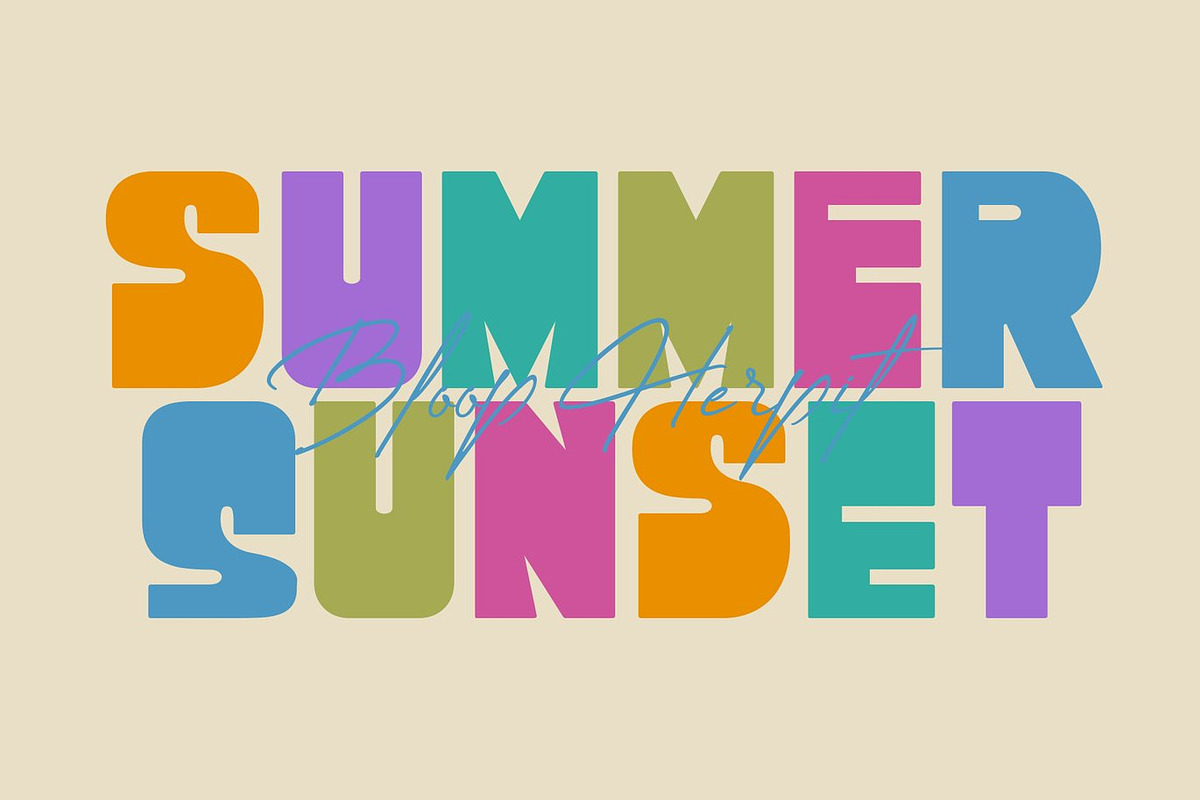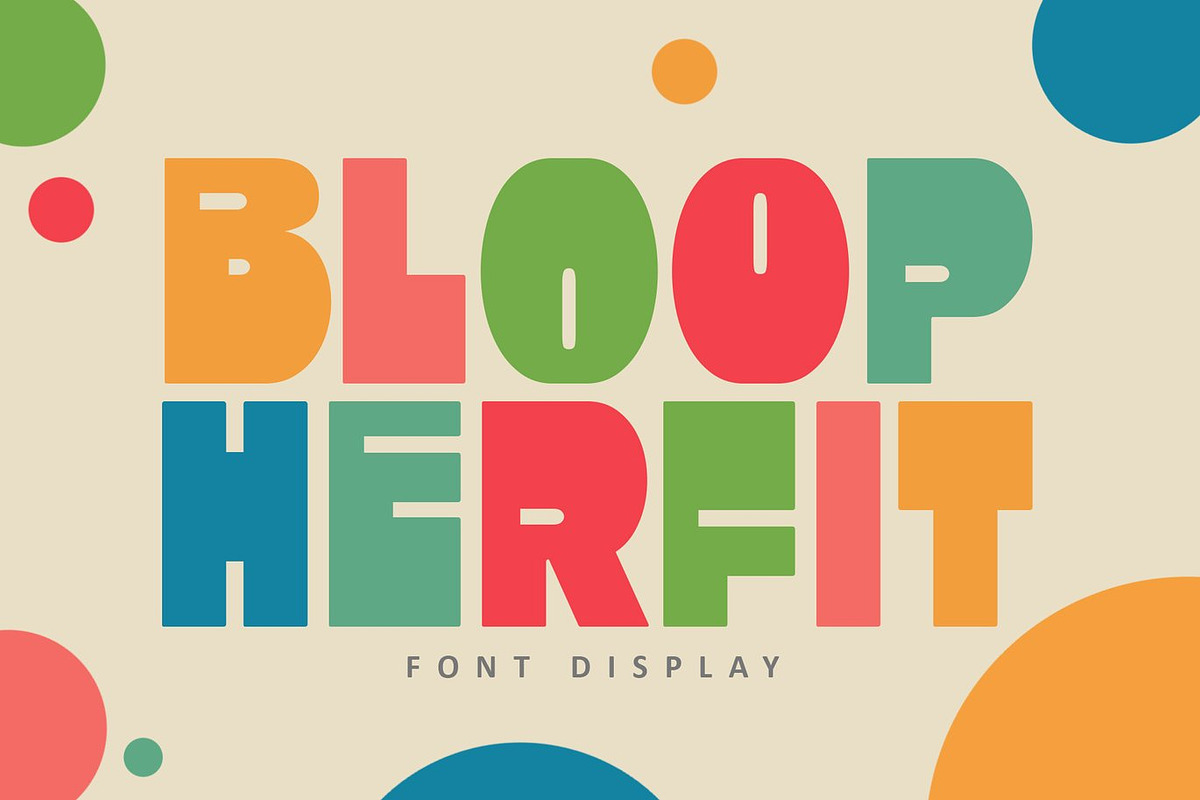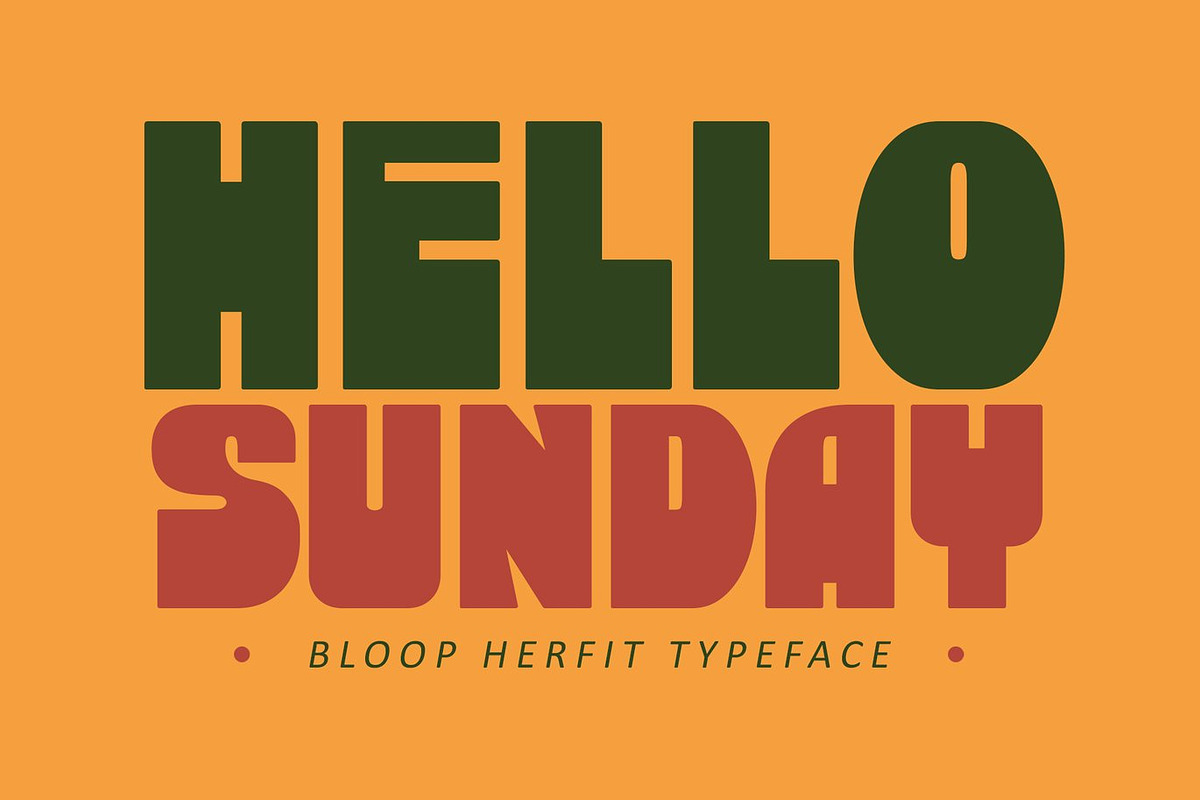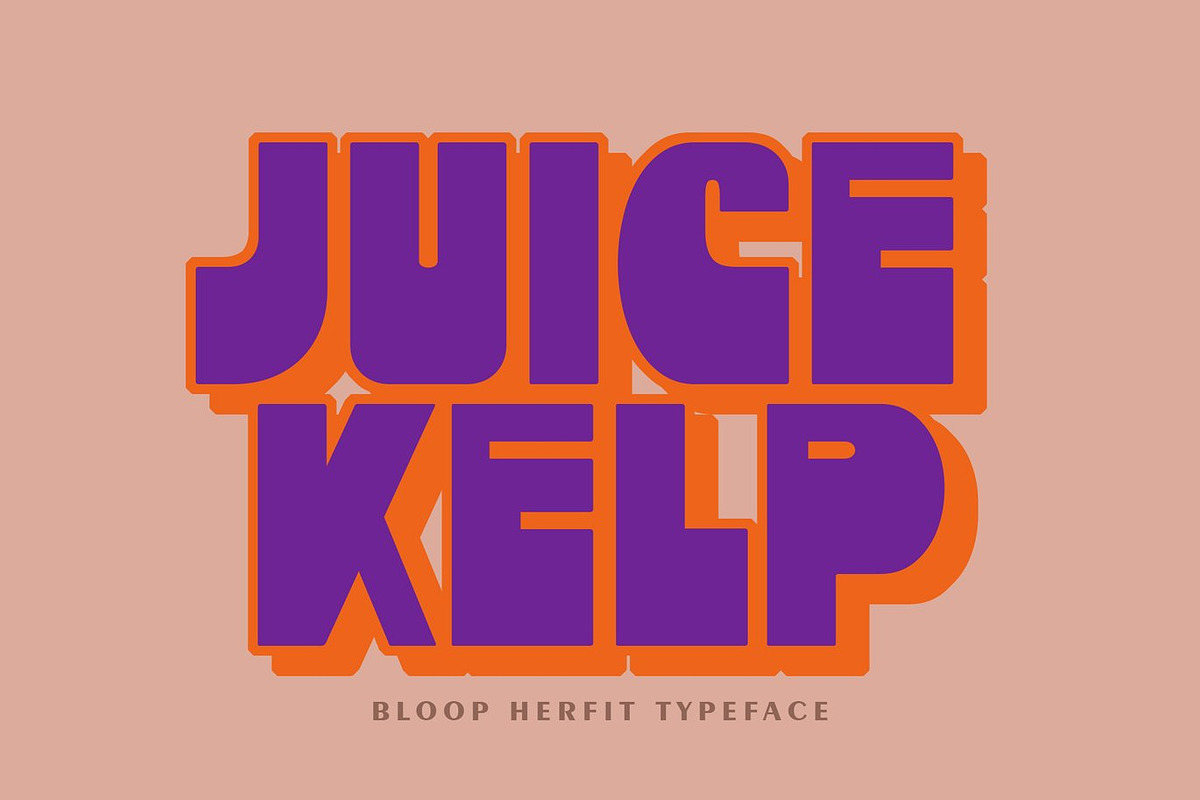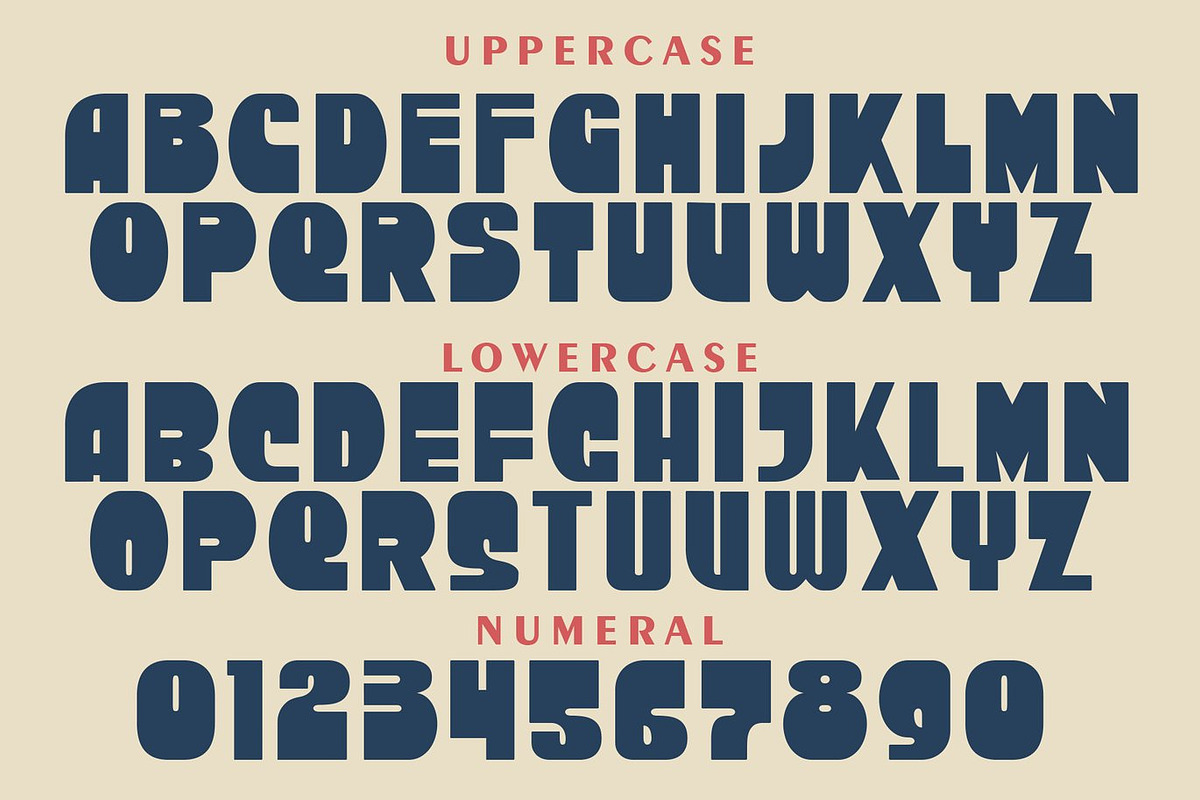
Hello Sunday - Playful Display Font
Hello Sunday is a playful and adorable display font designed to bring happiness, creativity, and cheerful energy into your projects. Inspired by fun childhood moments and colorful imagination, this font features cute letterforms, soft curves, and a friendly personality that instantly makes every design feel warm and inviting. Its charming style creates a joyful atmosphere that is perfect for playful and creative typography compositions.
This font shines beautifully in children themed designs, toy packaging, birthday invitations, school projects, posters, storybooks, social media graphics, apparel, stickers, and colorful branding concepts. When combined with vibrant colors and fun illustrations, Hello Sunday becomes even more expressive and eye catching, helping your work stand out with positivity and charm.
Hello Sunday was created for designers who want typography that feels fun, approachable, and full of personality. Its balanced structure keeps text readable while maintaining a cute and lively appearance across both print and digital media. Whether used in playful headlines or decorative layouts, this font adds a bright and creative touch to every project.
With its joyful mood and friendly visual style, Hello Sunday transforms ordinary text into delightful typography filled with imagination and happiness. It is the perfect font for creators looking to add playful charm and colorful energy to their design collection.
Hello Sunday Font Features:
• Playful and cute display style
• Uppercase and lowercase characters
• Numerals and punctuation
• Friendly and cheerful letterforms
• Perfect for children themed designs and colorful projects
• Ideal for posters, invitations, packaging, and social media
• Suitable for print and digital applications
• Fun and expressive typography appearance